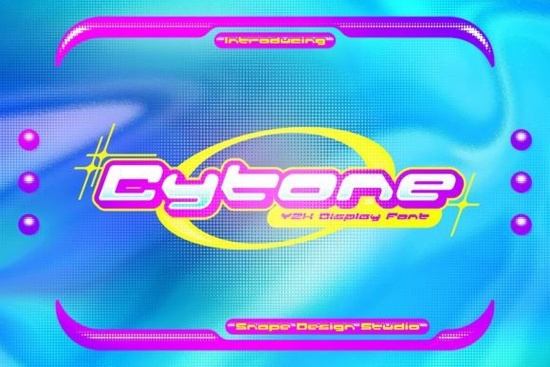
If you’ve been searching for a font that feels like it stepped out of a late ‘90s sci-fi movie or a glitchy music video from the turn of the millennium, Cytone Font might be exactly what your project needs. It’s got that Y2K energy think chrome finishes, pixel glows, and digital rebellion but with clean lines that keep it modern and usable today. Whether you’re designing a poster for a synthwave gig, branding a tech startup, or just want your book cover to scream “future,” this font brings personality without sacrificing legibility.
What kinds of projects does Cytone Font work best for?
Because of its strong visual identity, Cytone isn’t meant to be a body text font. Instead, it shines in places where you want immediate impact:
- Movie posters or album covers especially for genres like cyberpunk, synthwave, or retro-futurism.
- T-shirt designs or merch perfect for print-on-demand sellers targeting niche aesthetics.
- Social media graphics or YouTube thumbnails grabs attention fast without looking cluttered.
- Game UI or app splash screens adds a digital vibe that feels intentional, not accidental.
- Event banners or flyers ideal for gaming conventions, tech expos, or themed parties.
If you’re working on branding or logo design, try pairing Cytone with simpler sans-serifs for balance. For example, Anton offers clean, blocky contrast, while Permanent Park brings a more organic, hand-drawn counterpoint. Mixing styles thoughtfully can make your layout feel more dynamic without overwhelming the viewer.
How does Cytone compare to other display fonts?
Unlike some display fonts that lean purely decorative or overly ornate, Cytone keeps its structure readable even at smaller sizes. That doesn’t mean you should use it for paragraphs but for subheadings, pull quotes, or product names, it holds up better than many alternatives.
Compare it visually to Cranbarries, which has a playful, almost cartoonish bounce, or Fries and Shake, which leans into diner-style nostalgia. Cytone sits in a different lane more digital, more angular, more “what if my computer started talking back.”
Is Cytone Font beginner-friendly?
One tip: because of its stylized nature, avoid stretching or distorting the letters manually. Let the font do the heavy lifting. If you need variation, look for alternate glyphs or stylistic sets included in the file sometimes there are hidden extras like underlines, ligatures, or number variants that add polish.
Who should consider adding this to their toolkit?
If you fall into any of these groups, Cytone could become a go-to in your font folder:
- Print-on-demand creators especially those selling to gamers, tech enthusiasts, or retro culture fans.
- Small business owners cafes, boutiques, or studios with a futuristic or edgy brand voice.
- Hobbyist designers making zines, stickers, or personal projects with a distinct aesthetic.
- Teachers or event planners creating eye-catching materials for STEM fairs, coding clubs, or sci-fi nights.
And if you’re building a library of display fonts for client work, having something like Cytone gives you flexibility. It’s specific enough to stand out, but broad enough to adapt across industries.
- Preview your text type in actual words you plan to use. Some fonts look great with “SAMPLE” but fall apart with “QUIZ.”
- Pair wisely have a neutral font ready to complement Cytone’s strong personality.
Fonts like this don’t come around every day they’re not just tools, they’re tone-setters. If your next project needs to feel like it’s broadcasting from the year 2077 via a fuzzy VHS tape, give Cytone a try. It’s more than a typeface it’s a vibe.